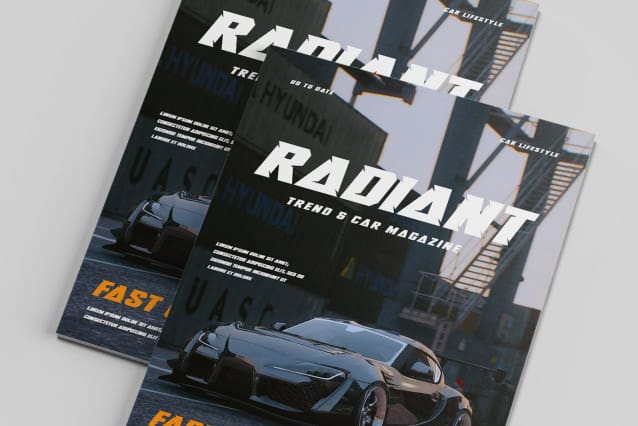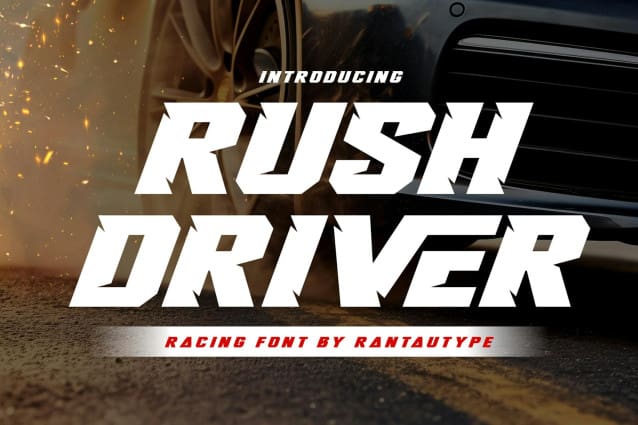
Rush Driver Font
Rush Driver Font, experience racing in a visual form for your design with the RushDriver font. Inspired by the brand of fast cars with a slash in every character, it targets the fast-forward mentality with a bold shape to make the message stand out louder and faster than ever. RushDriver comes with alternate, ligated, and multilingual support.
Perfectly suitable for any creative activity, sports branding, logo, e-sport, gaming, posters, movie/movie, car brands, car events, advertising, motorcycles, digital futuristic concept, etc.